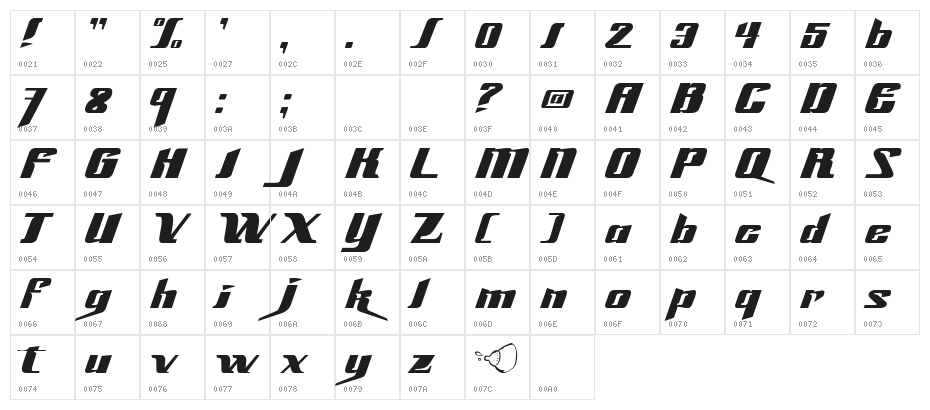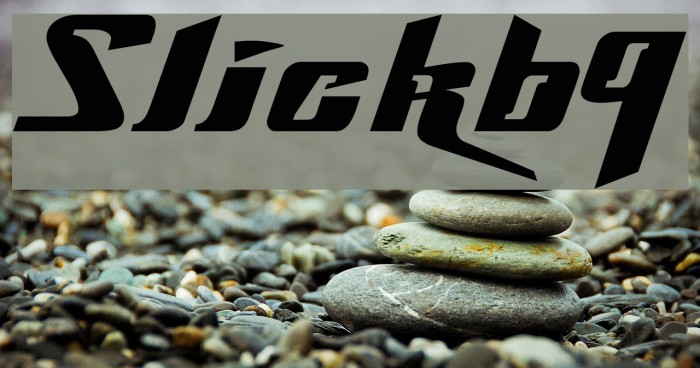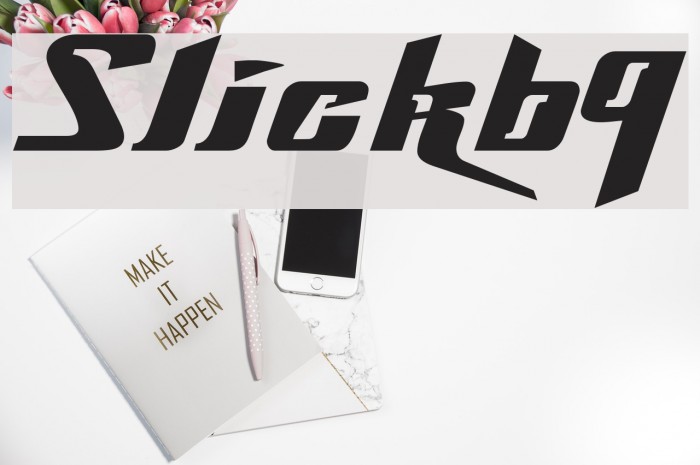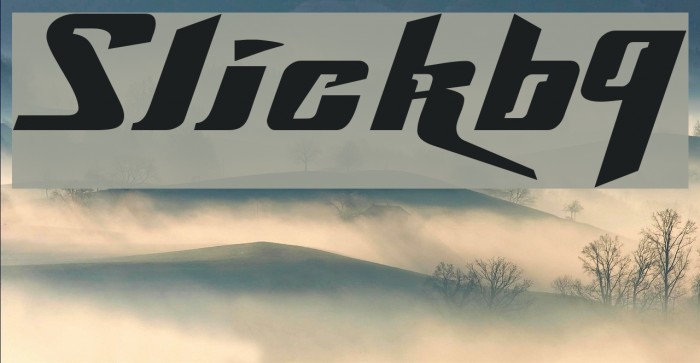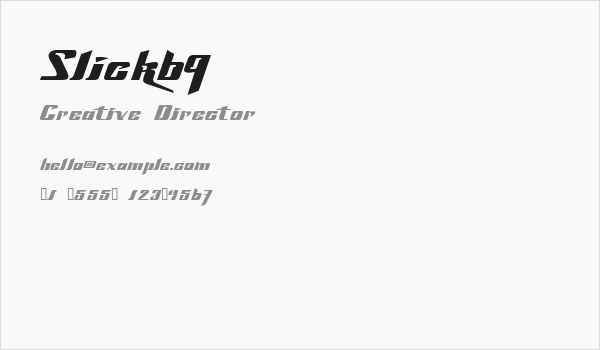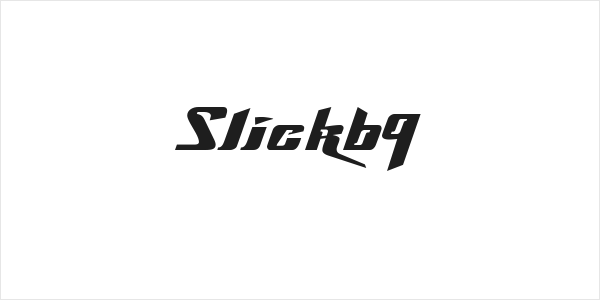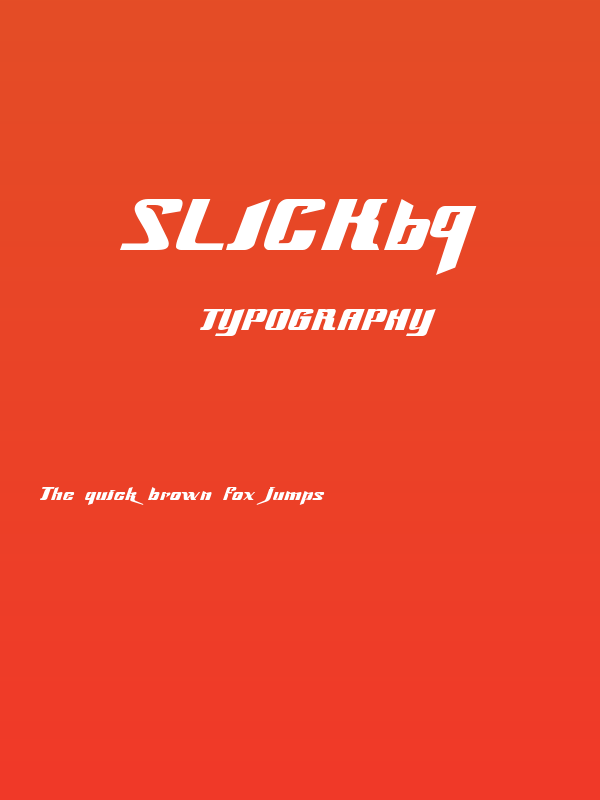
Slick69 Font
Slick69 Description
This font features a bold, angular design with a futuristic and dynamic appearance. The characters are sharply defined with a distinct slant, giving them a sense of motion and speed. The uppercase and lowercase letters maintain a consistent style, with sharp edges and a slightly condensed form. Numbers and special characters follow the same angular theme, ensuring uniformity across all glyphs. The overall look is modern and edgy, making it suitable for projects that require a strong visual impact.
| Proposed Projects | Ideal for sports branding, automotive designs, video game titles, and tech-related projects. |